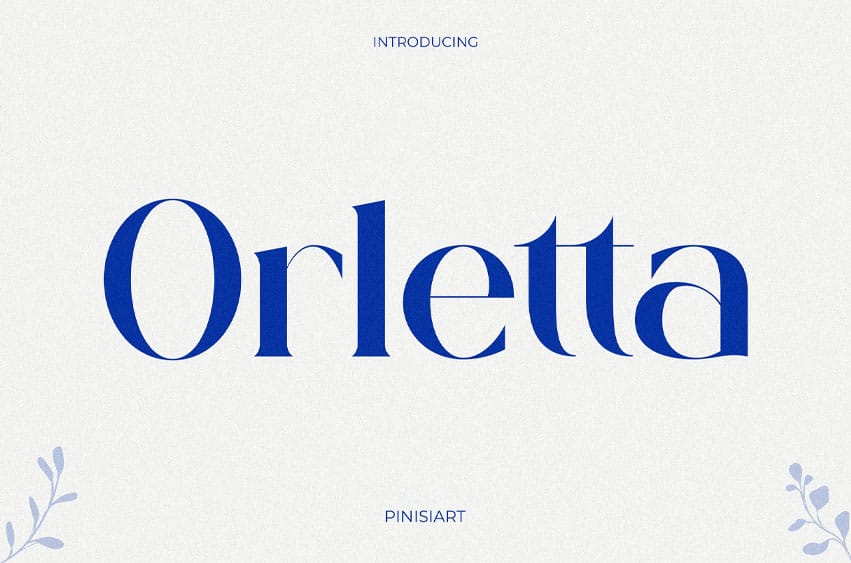
Orletta Font is a high-contrast modern serif typeface that radiates style, elegance, and distinction. With flared strokes, elegant proportions, and signature character detailing, Orletta turns headlines into icons and text into statements. It’s more than a font—it’s a fashion-forward identity tool. Orletta speaks the language of luxury without raising her voice.
Orletta is crafted for creatives and brands who want to:
- Elevate skincare & beauty branding
- Design fashion editorials that pop
- Add style to magazine layouts
- Create elegant packaging for high-end goods
- Make logos that look like luxury signatures
From print to digital, Orletta owns its space.
- High Contrast & Stylish Forms Sharp serifs, smooth curvature, and wide apertures for an editorial flair.
- Luxury by Design: Perfect for beauty, fashion, jewelry, and premium product packaging.
- Refined Ligatures & Alternates Carefully crafted to enhance sophistication and variety.
- Basic Latin A–Z and a–z
“Elegance isn’t loud. It simply knows where to stand.” – That’s Orletta. It doesn’t just style your text — it gives it presence. Use it to design confidence, beauty, and identity with every letter. More than type, it’s a signature. Let your brand, editorial, or packaging design own the room with Orletta.